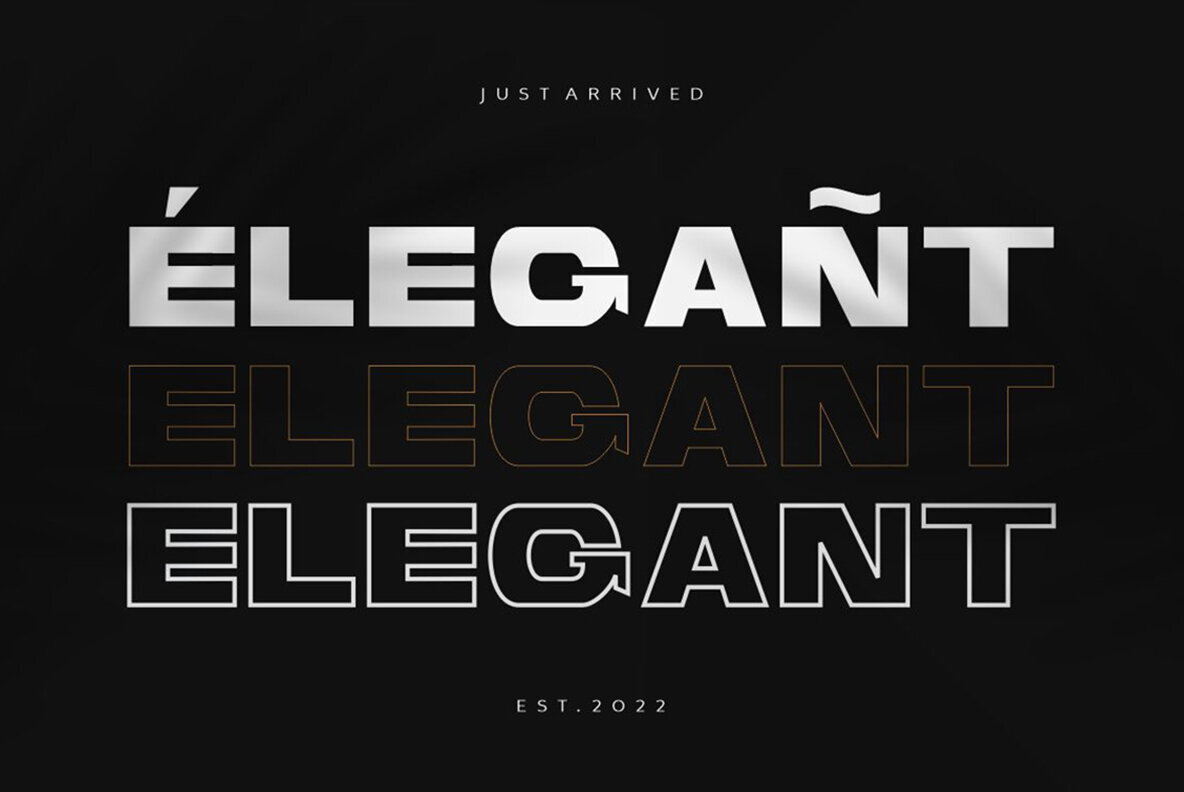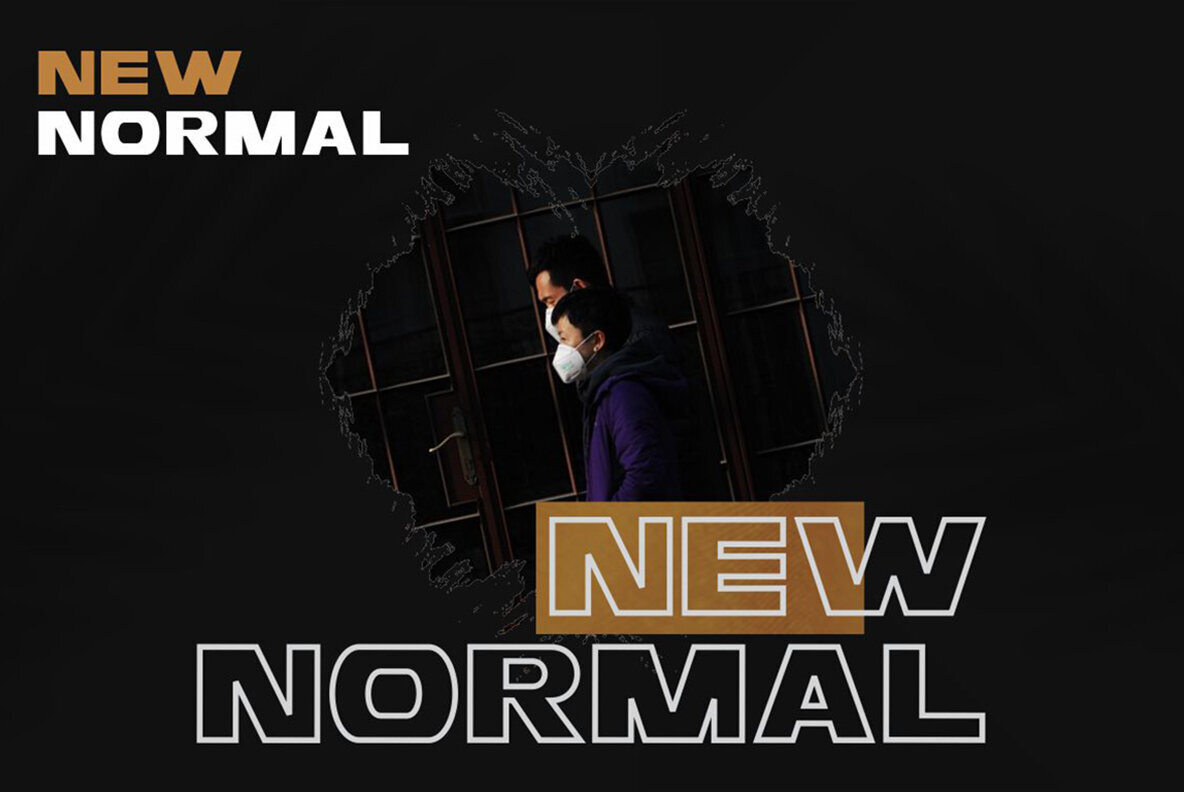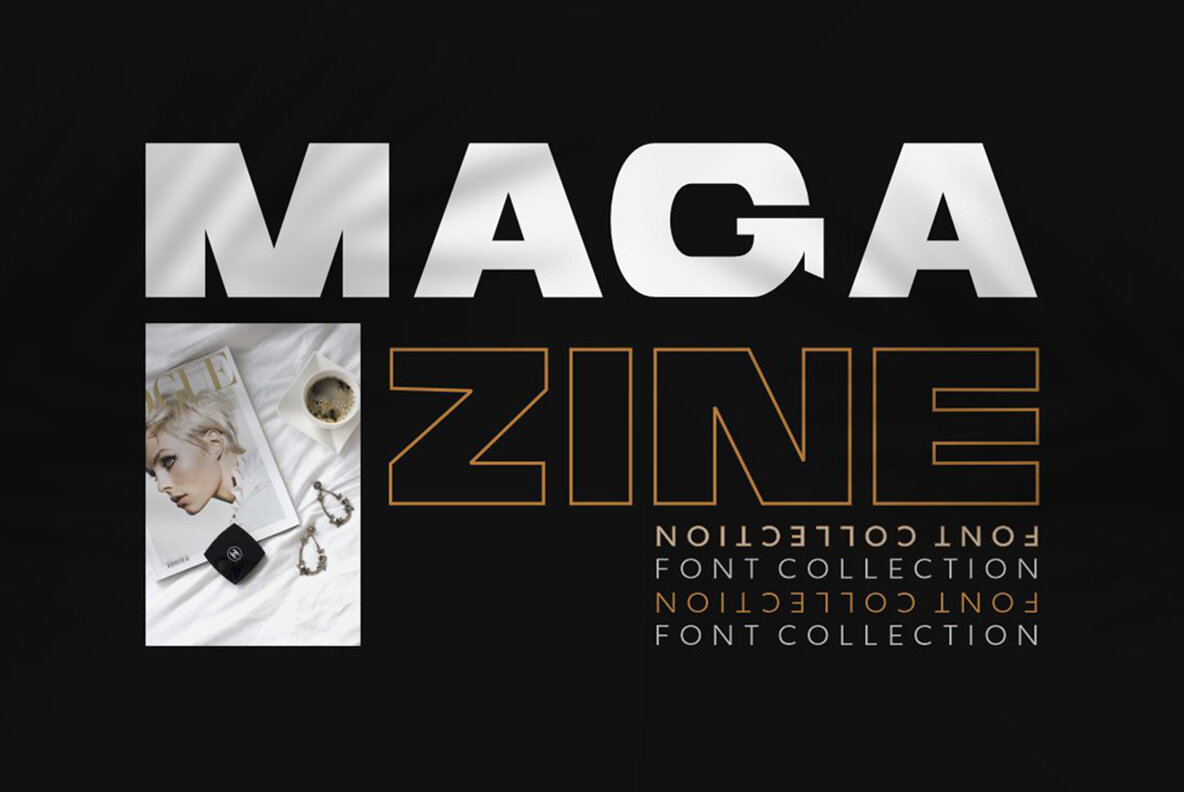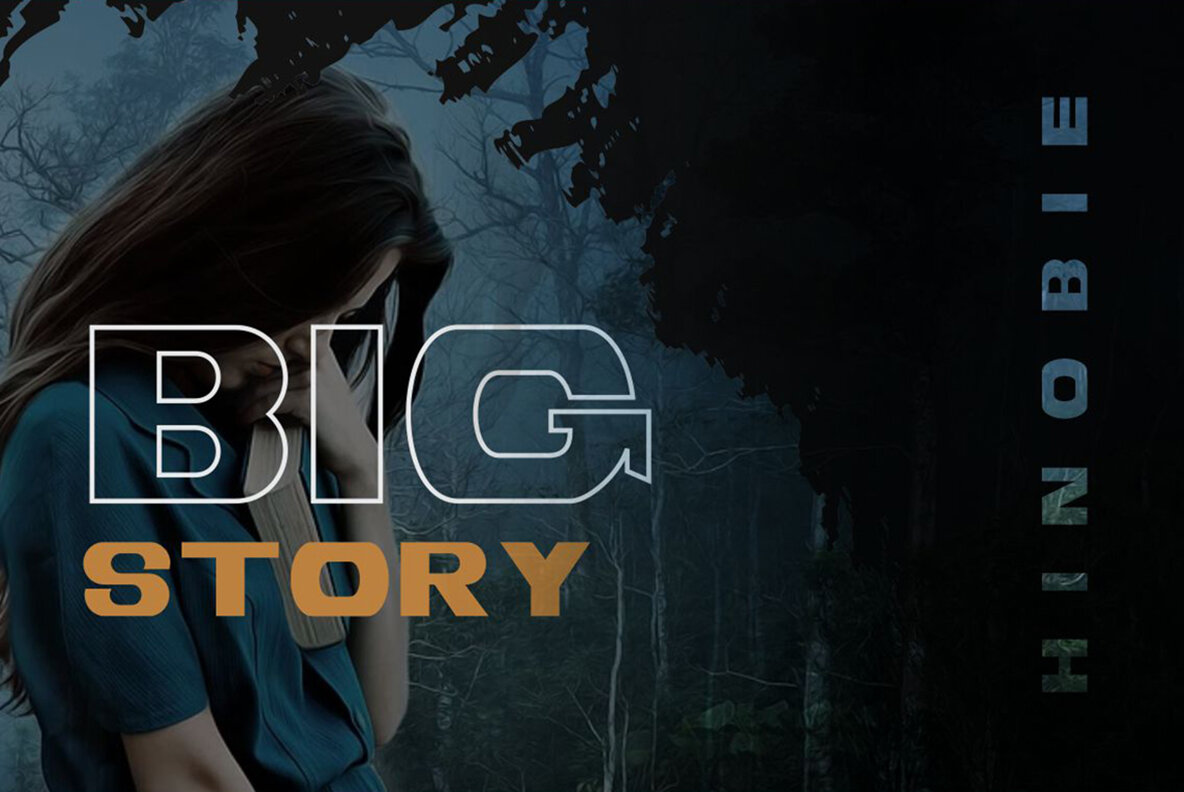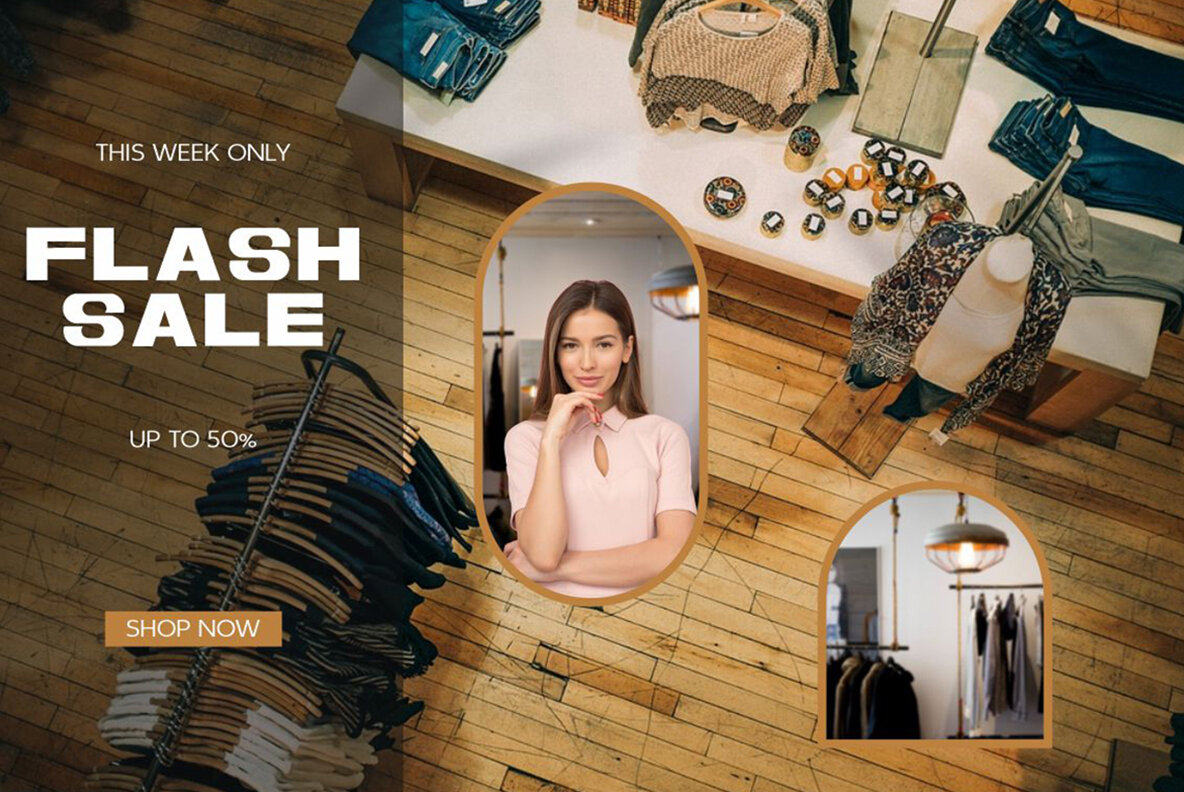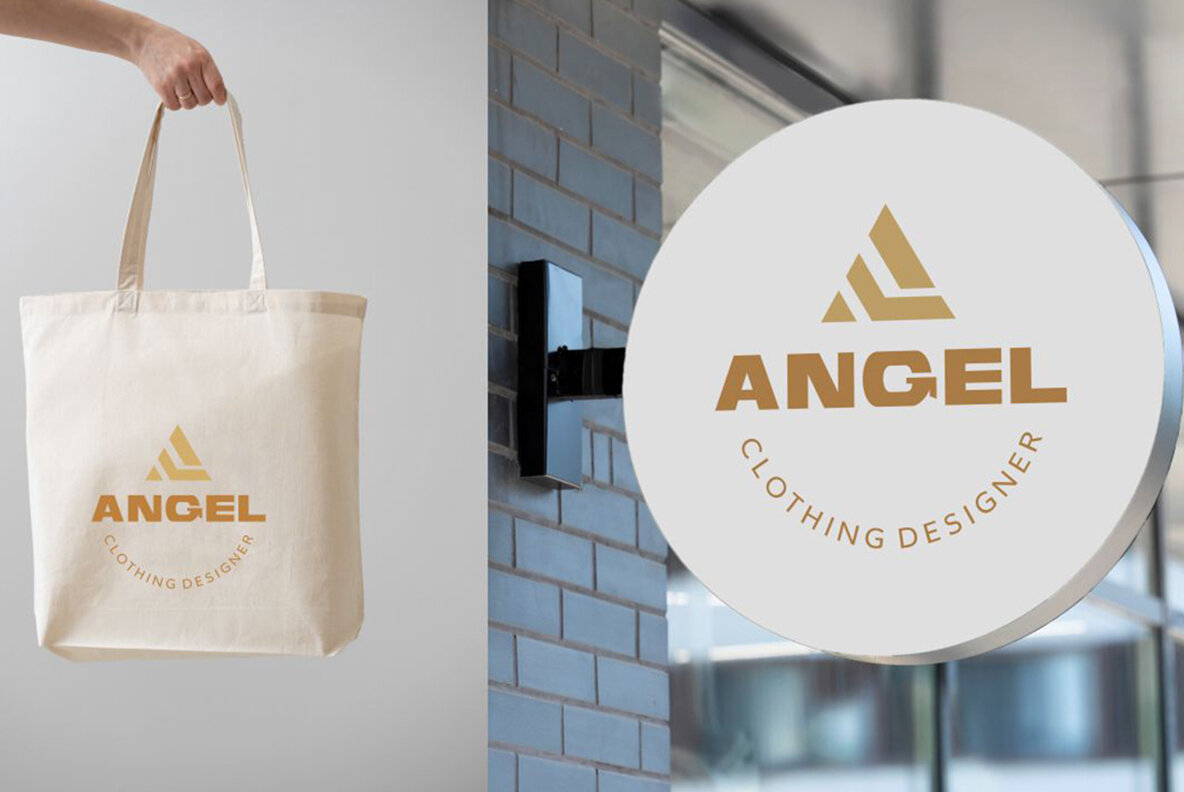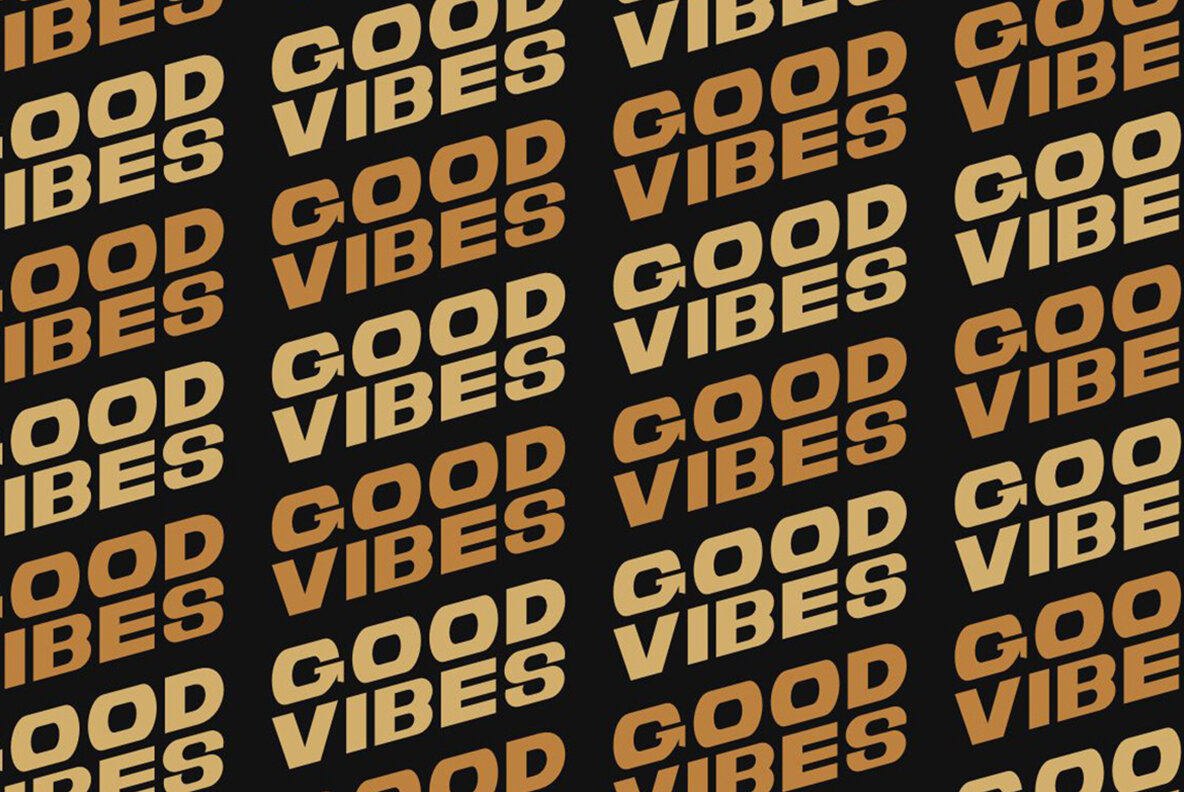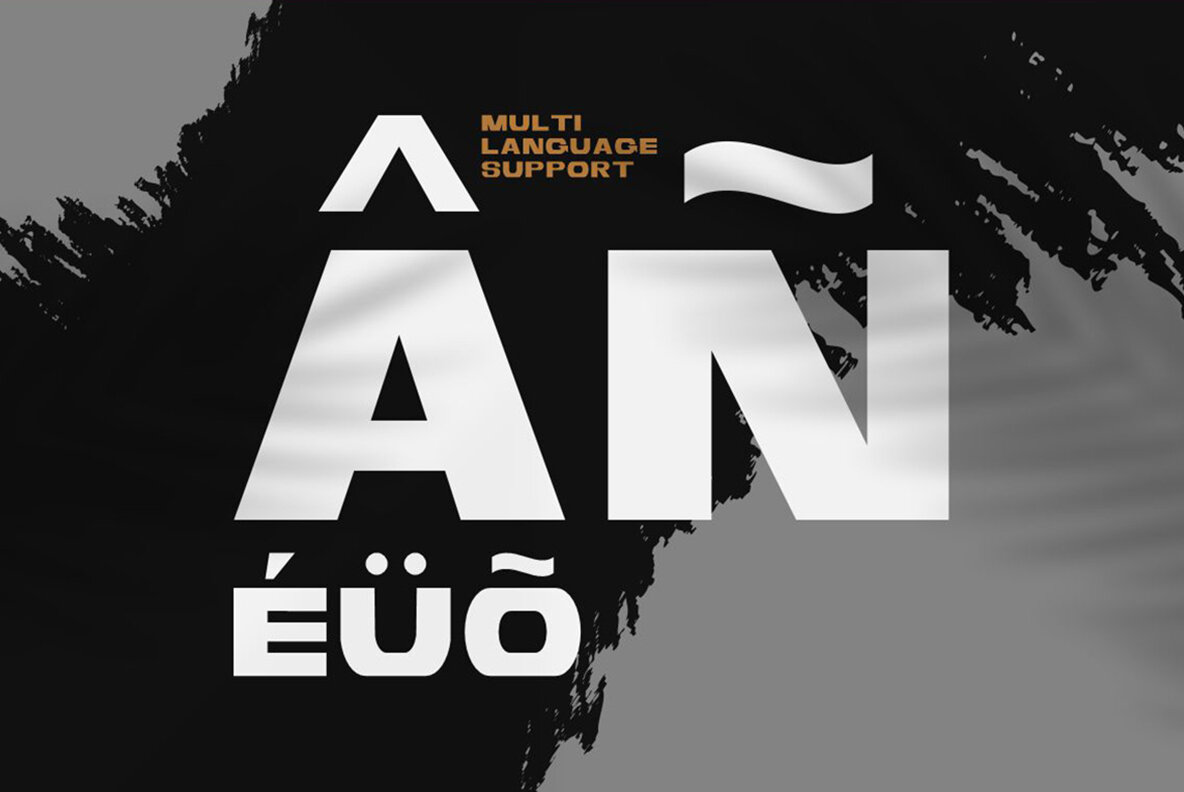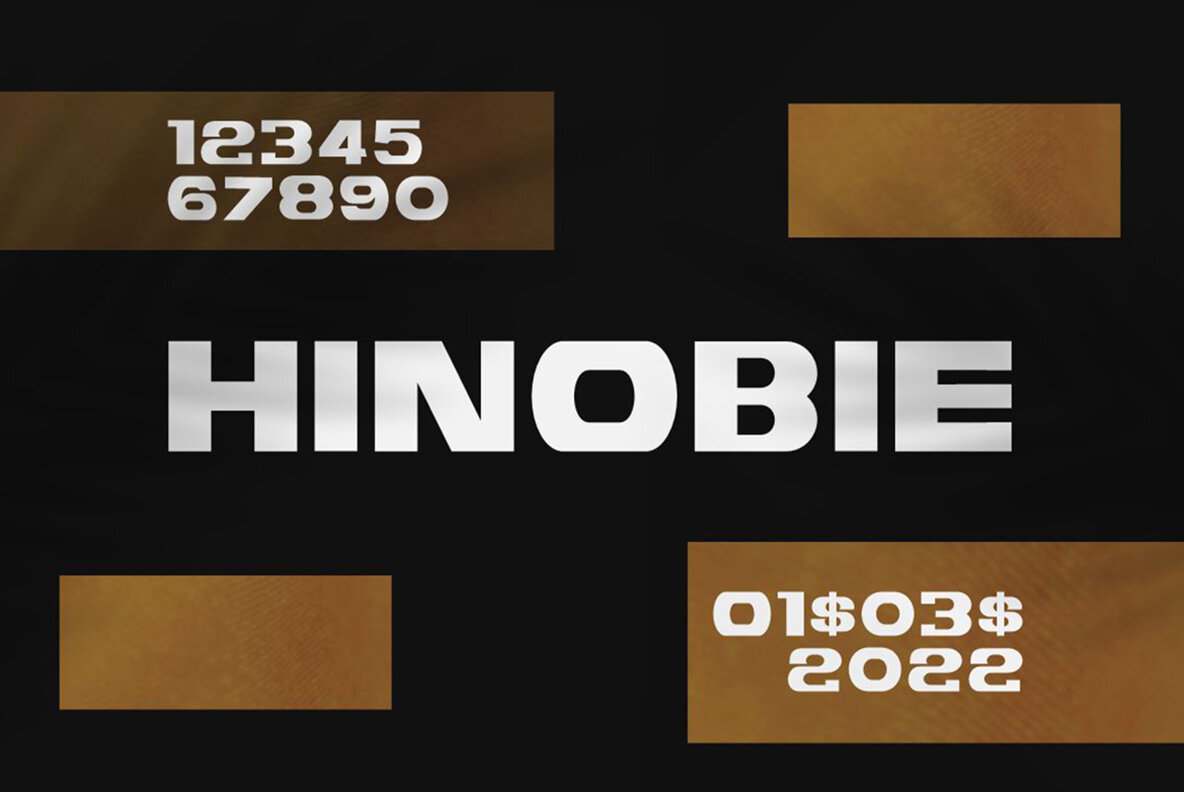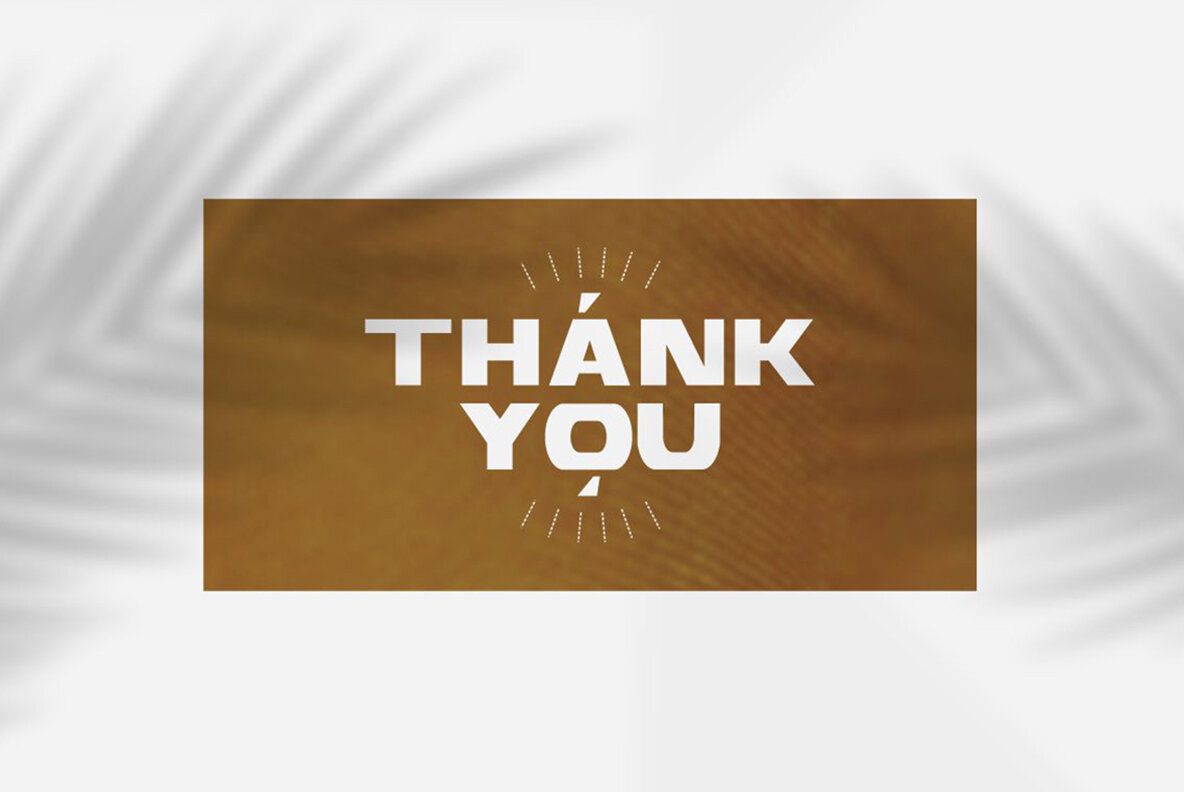
HINOBIE Font
HINOBIE Regular
Immerse yourself in the world of elegance, style and sophistication with "HINOBIE", an exclusive Serif Display Font designed by esteemed designer, Gatype. A modern, classy yet fun, HINOBIE brings a unique and versatile style to your creative projects. Showcasing a wealth of unique design alternatives and binders, HINOBIE seamlessly marries the concept of style and readability, making it a perfect solution for those in search of distinctive, easy-to-read typography. More than just an aesthetic choice, HINOBIE also guarantees an optimal user experience. It doesn't just look phenomenal at display sizes - the font is carefully crafted to ensure easy readability at text sizes. Consider HINOBIE your go-to tool for impactful, engaging, and visually stunning designs that captivate your audience. Perfect for graphic designers and marketing firms aiming to bring a signature twist to their creation. Every signage, label, logo or flyer will exude a refined, yet playful class that HINOBIE effortlessly delivers.Discover the Diverse World of "HINOBIE": An Exclusive Serif Display Font